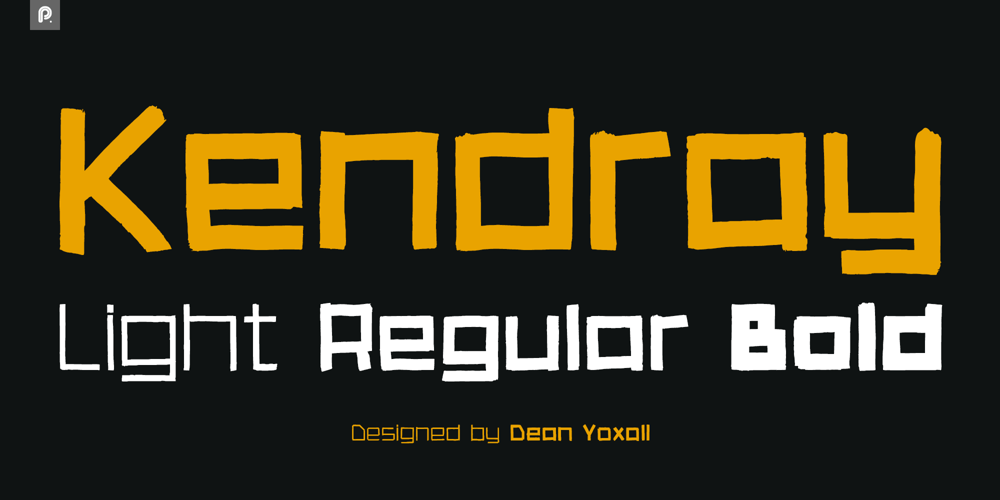
Kendray
Kendray font
Kendray Font Family was designed by Dean Yoxall and published by Pixel Play. Kendray contains 3 styles and family package options. Kendray is a rough hand-drawn font, inspired by graffiti and in part Asian/Japanese letterforms. Kendray is available in three weights, each weight includes three sets of stylistic alternatives for all letters and numbers, this ensures that you don’t need to repeat characters within words and you achieve a true hand drawn look.